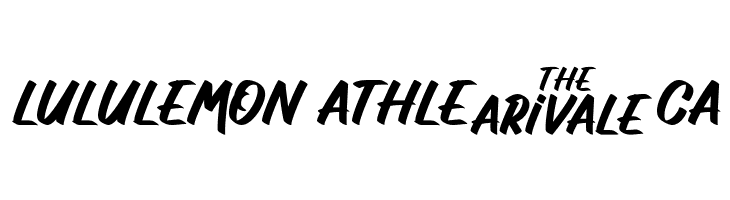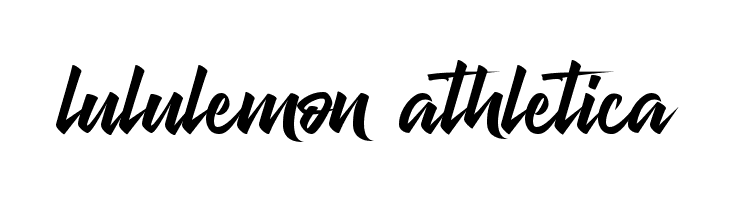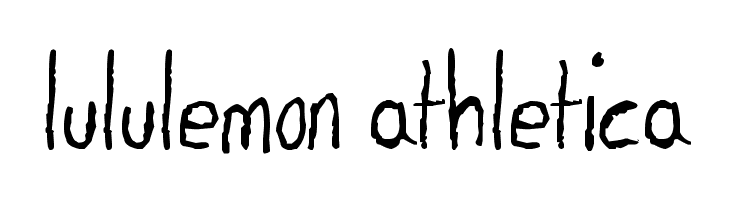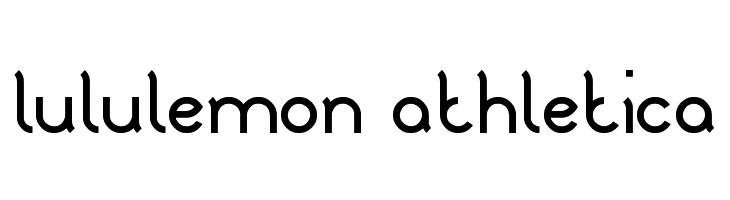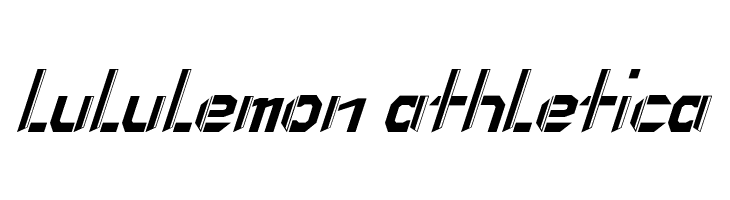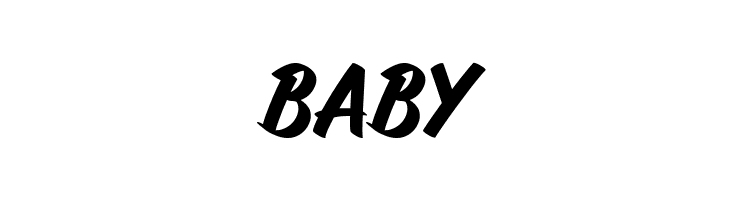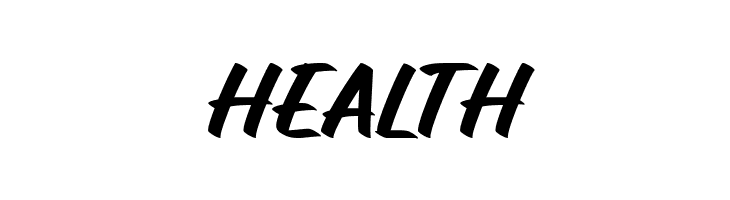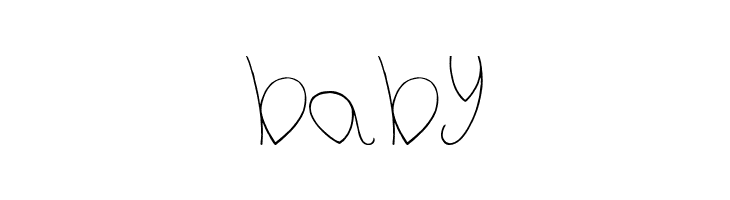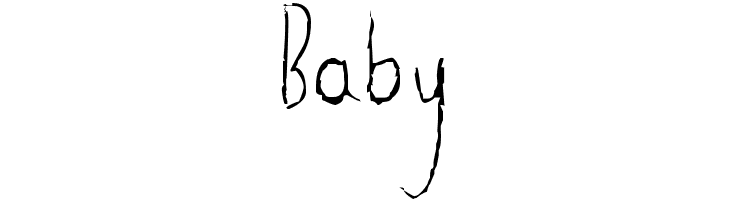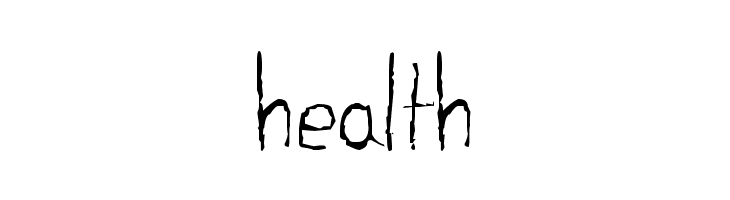
A bold, dynamic script font with sweeping strokes and a handcrafted feel.
A bold, energetic script font with a modern, handwritten style.
A bold, italicized font with a futuristic and angular design.
A modern, playful font with rounded characters and unique curves.
A playful, hand-drawn font with a whimsical, childlike style.
A playful, bold handwritten font with a quirky, informal style.
A bold, italicized, and playful handwritten font with an energetic and informal style.
A playful, handwritten font with a quirky, informal style.
A playful, hand-drawn font with a whimsical, childlike style.
A whimsical and playful font with tall, slender letterforms and exaggerated curves.